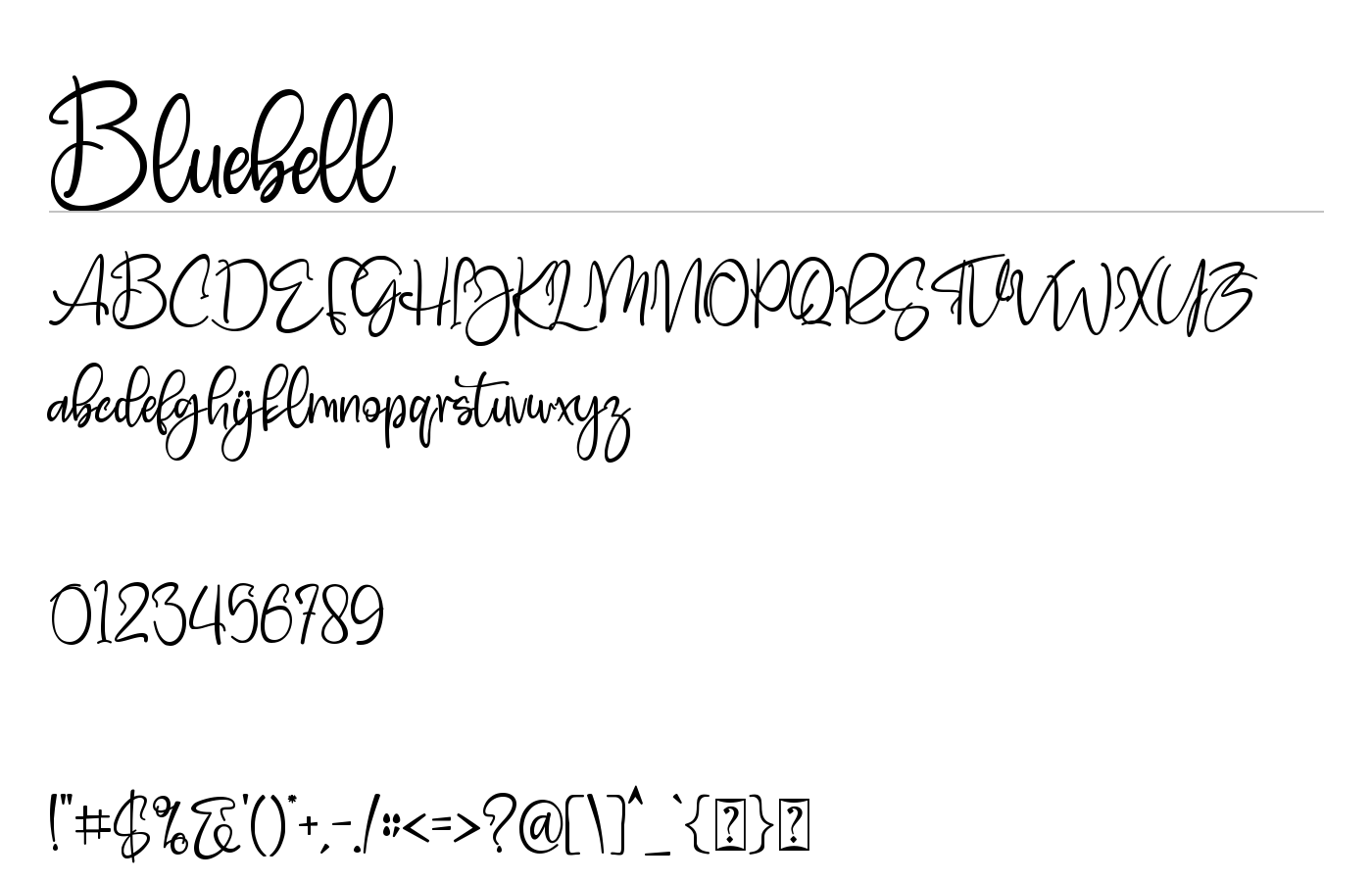
Bluebell is a playful and elegant handwritten script font with a light, airy feel. Its thin, flowing strokes and tall lowercase letters give it a fresh, casual charm perfect for invitations, greeting cards, and branding that seeks a personal, warm touch. This font works best in decorative uses where a friendly yet stylish tone is desired.
Bluebell Font
About Bluebell Font
| Font family | Bluebell Font |
| Designer | Letterara |